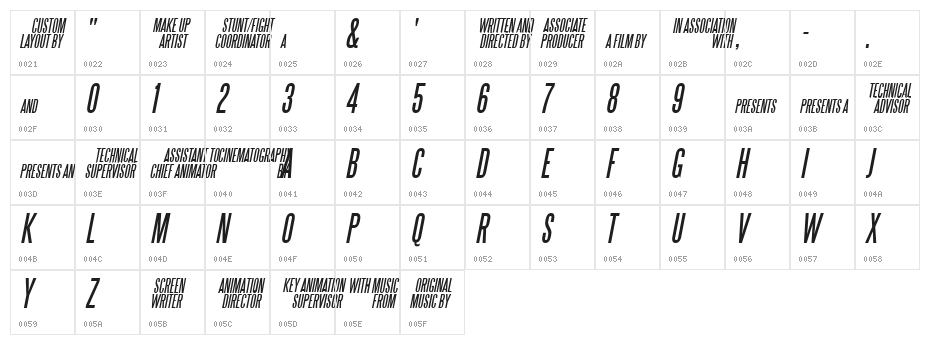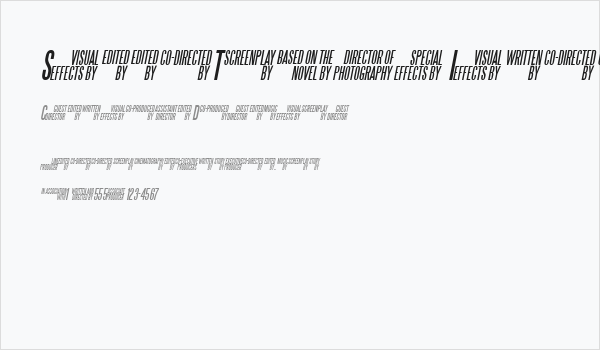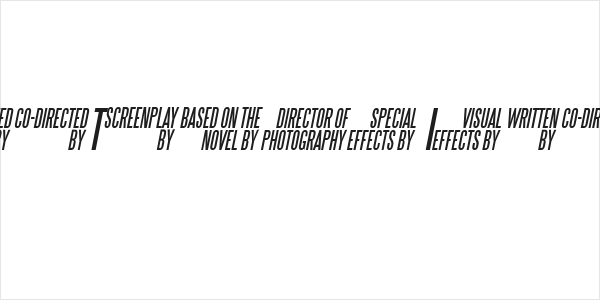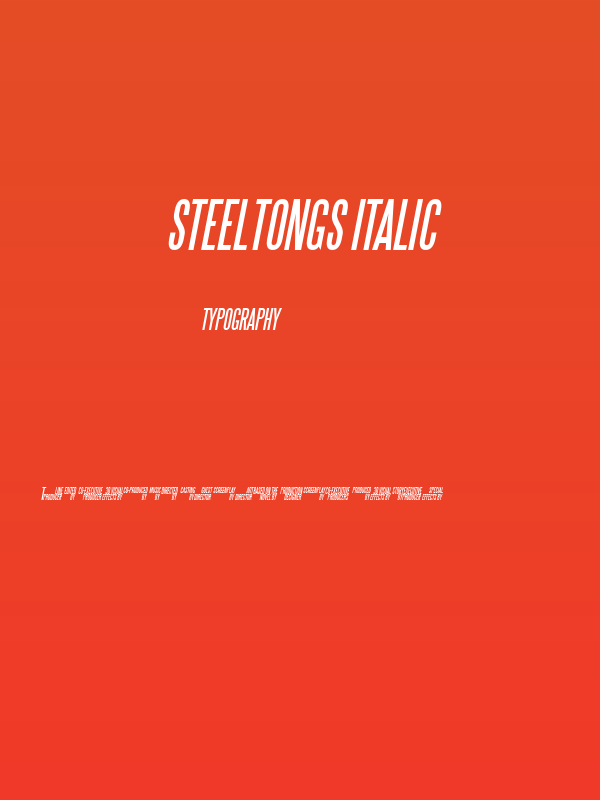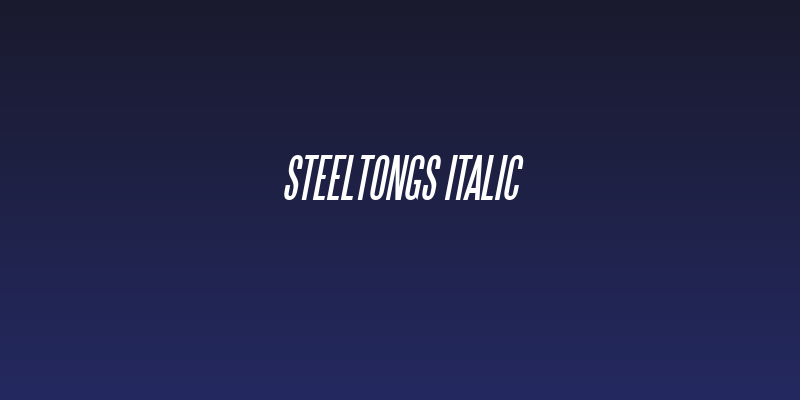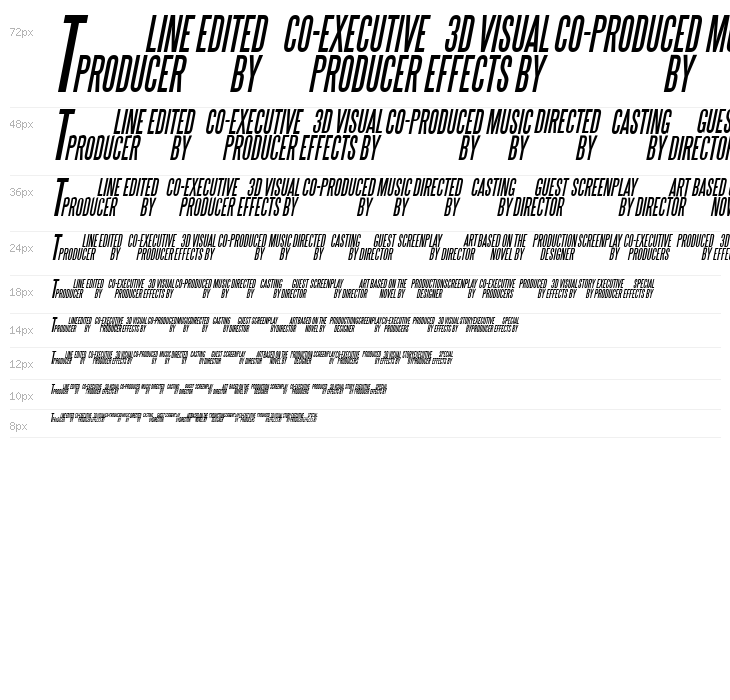
SteelTongs Italic Font
SteelTongs Italic Description
This font exhibits a bold and dynamic style with a strong italic slant, giving it a sense of motion and urgency. The characters are tall and narrow, with a condensed width that emphasizes verticality. The strokes are consistent in weight, providing a uniform appearance across all characters. The uppercase letters are particularly striking, with sharp angles and clean lines that enhance the font's modern aesthetic. The numerals and special characters maintain the same boldness and slant, ensuring cohesion throughout. This font's design is ideal for creating impactful headlines and titles, where a sense of speed and modernity is desired.
| Proposed Projects | Ideal for movie posters, sports branding, dynamic advertisements, and any project requiring a bold, modern look. |